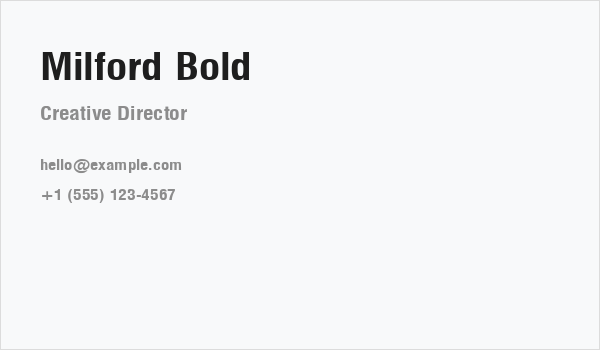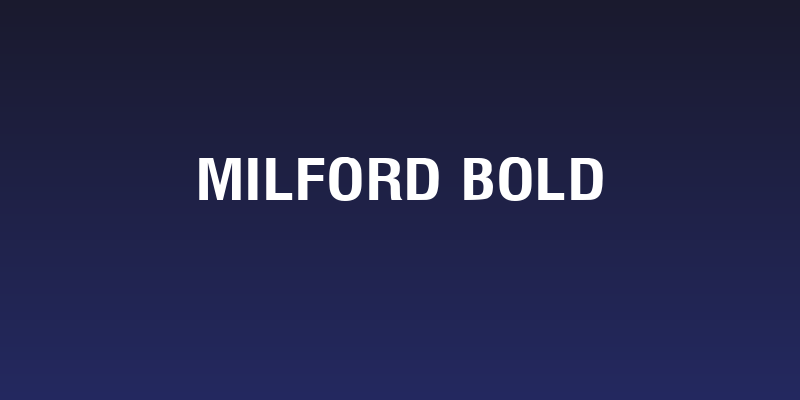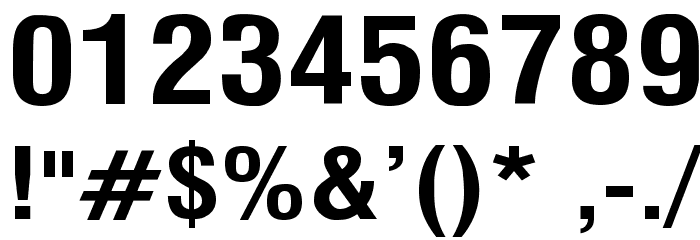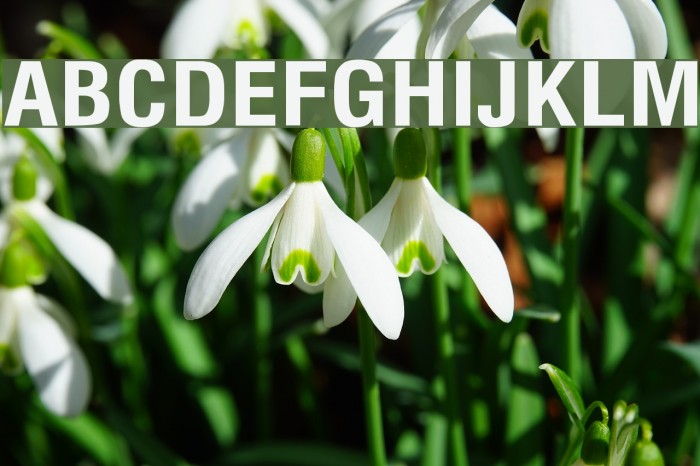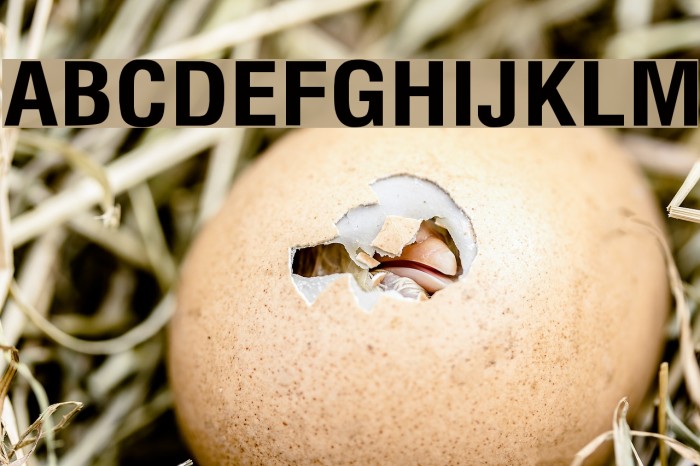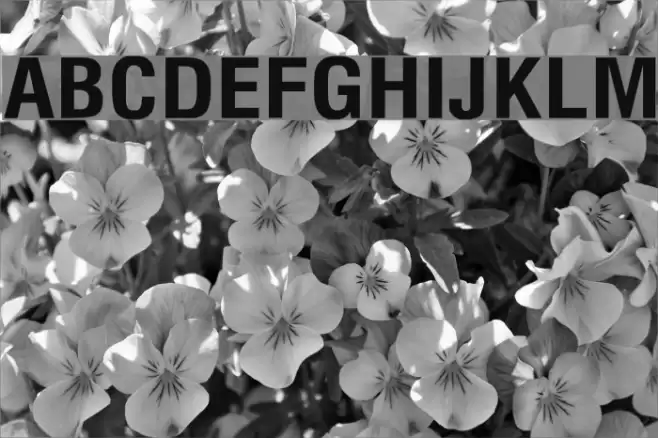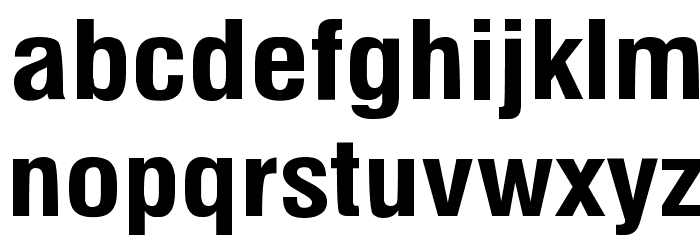
Milford Bold Font
Milford Bold Description
This font exhibits a bold and assertive style, characterized by its thick strokes and strong presence. The uppercase and lowercase letters are designed with a uniform width, giving it a balanced and cohesive appearance. The numerals are equally bold, ensuring readability and impact. Special characters are crafted with the same boldness, maintaining consistency across the character set. The overall design is modern and clean, making it suitable for a variety of applications where clarity and emphasis are required.
| Proposed Projects | Ideal for headlines, posters, branding, and any project requiring a bold statement. |